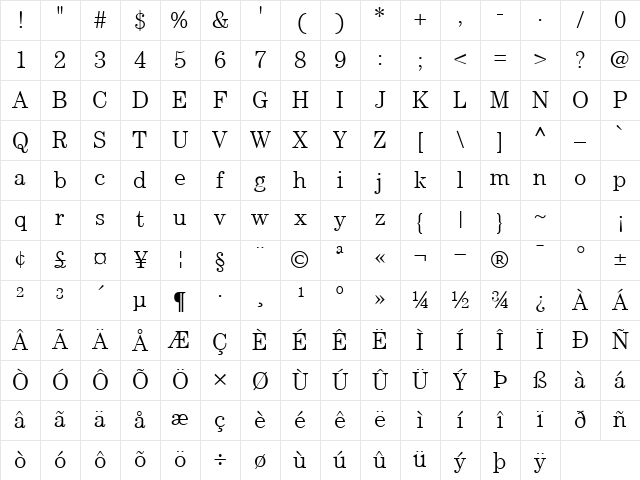
OldStyleLight Regular Free Font
OldStyleLight Regular
Design Context for OldStyleLight
OldStyleLight carries the refined structure of traditional serif typography, with bracketed terminals and considered proportions that communicate credibility and craft. Its slender proportions lend an understated elegance to any composition.
Pro Tip: Use OldStyleLight with generous line-spacing for the most refined reading experience - its light weight benefits from room between lines.